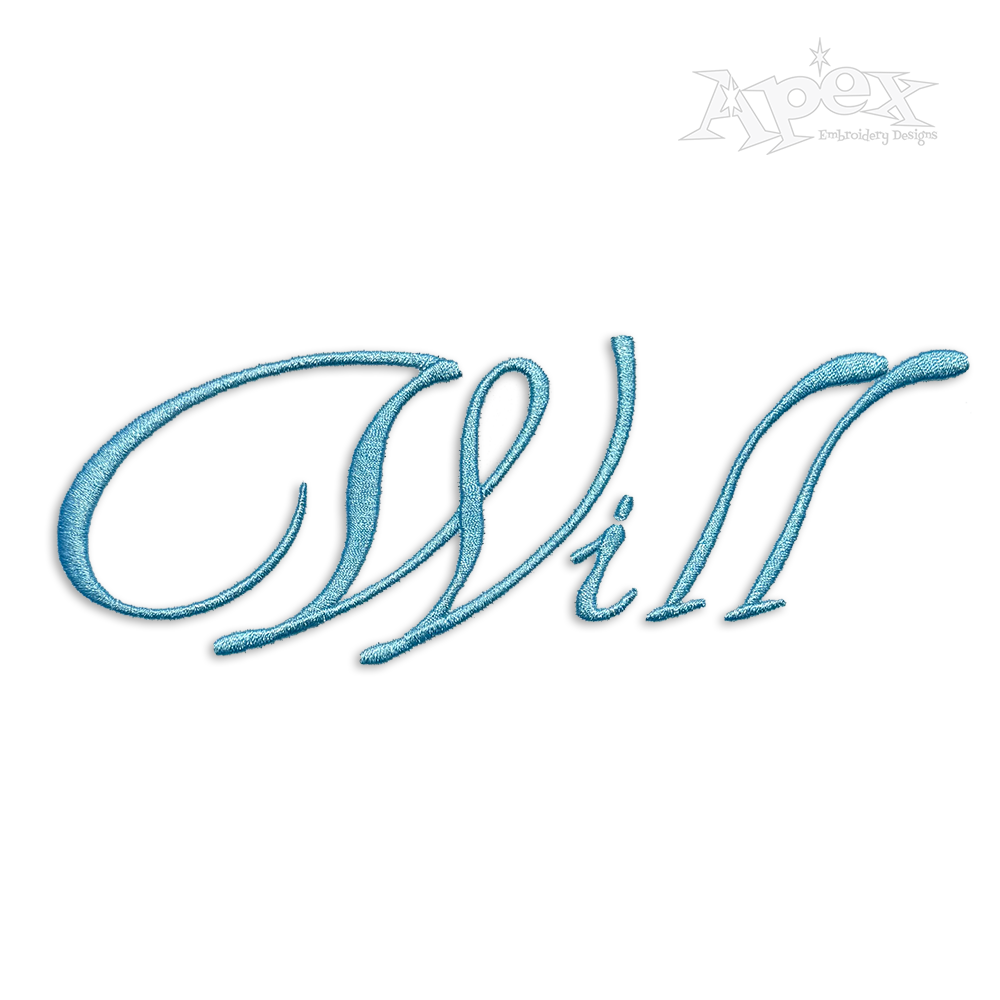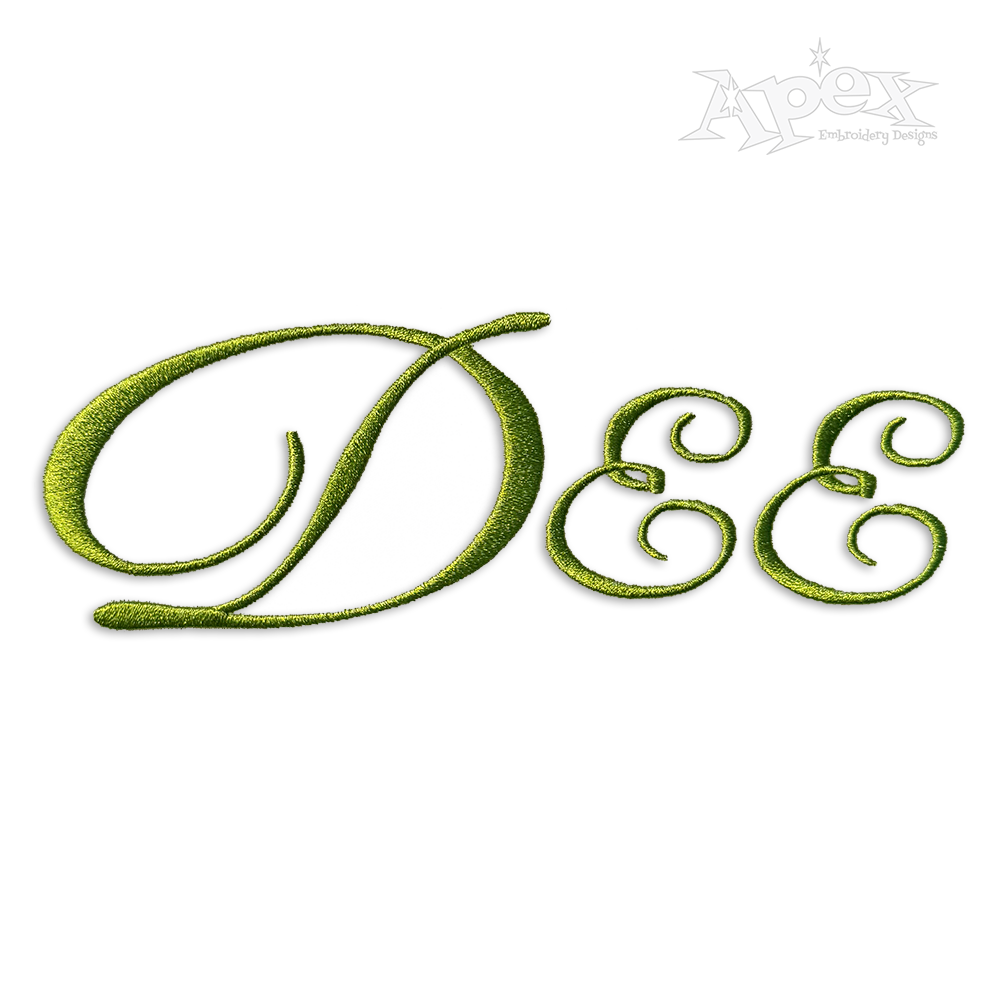
Marietta Script Embroidery Fonts
Rooted in the timeless charm and warm hospitality of the American South, the Marietta Script Embroidery Font brings the graceful rhythm of hand-drawn calligraphy directly to your embroidery needle. Inspired by vintage handwritten correspondence and sun-dappled veranda afternoons, this typeface was drafted to mirror the natural cadence of ink gliding across fine vellum. Each sweeping capital flourish and delicate lowercase connector has been artisanally digitized with continuous, flowing satin stitches that capture natural highlights and rich thread luster, lending an air of quiet luxury and heartfelt bespoke charm to every piece you stitch.
Project Ideas for Marietta Script
Marietta Script's elongated ascenders and soft transitions offer superb balance across both flat surfaces and curved edges:
Marietta Script Craft & Letterform Details
True luxury embroidery begins deep within the stitch architecture, long before the machine takes its first pass. When digitizing Marietta Script, our primary focus was to honor the delicate swelling and tapering of an authentic pointed-pen nib. Rather than using automated stitch generation, every contour was manually plotted with graduated satin columns that gracefully expand through the heart of downstrokes and feather into featherlight ligatures.
We designed the underlay foundations to build subtle, dimensional loft without introducing stiff density or puckering around fragile curve intersections. The entry and exit terminals are feathered to overlap effortlessly when joining letters, allowing you to assemble names, sentiments, and custom monograms that read as continuous, unbroken strokes of thread. The result is a satin stitch alphabet that glides effortlessly through natural fibers—from crisp Irish linen to heavyweight pima cotton—imbuing your needlework with effortless Southern elegance and lasting heirloom beauty.